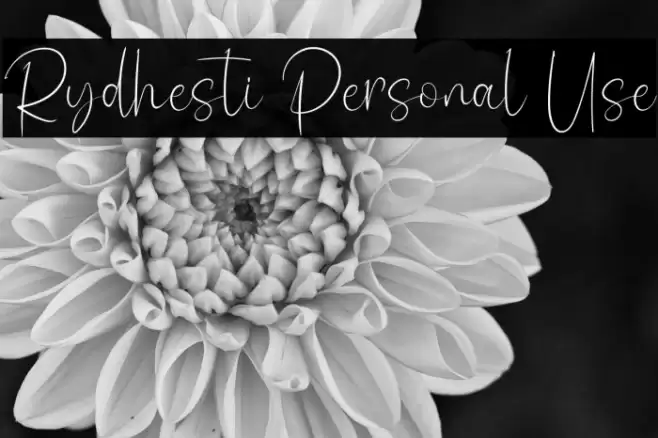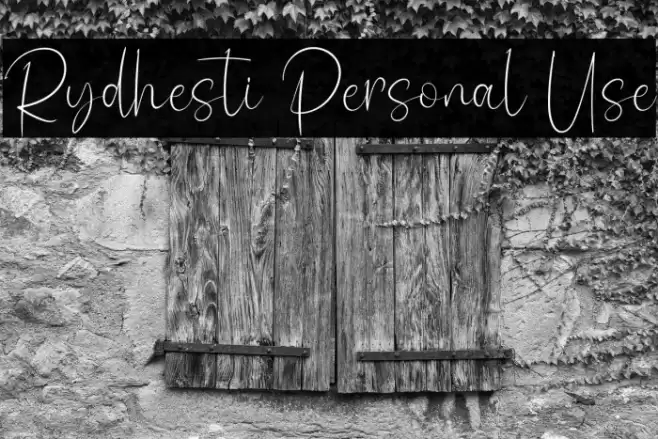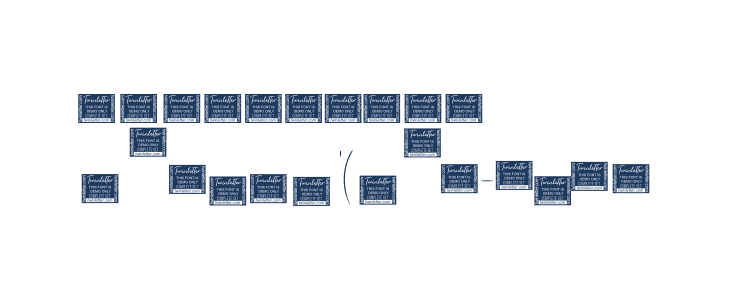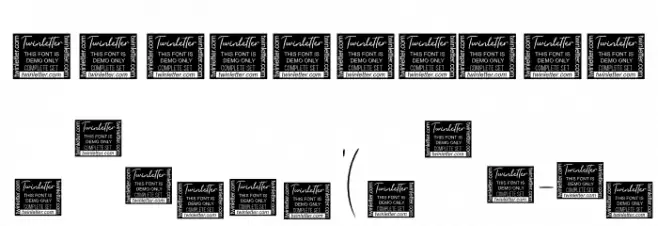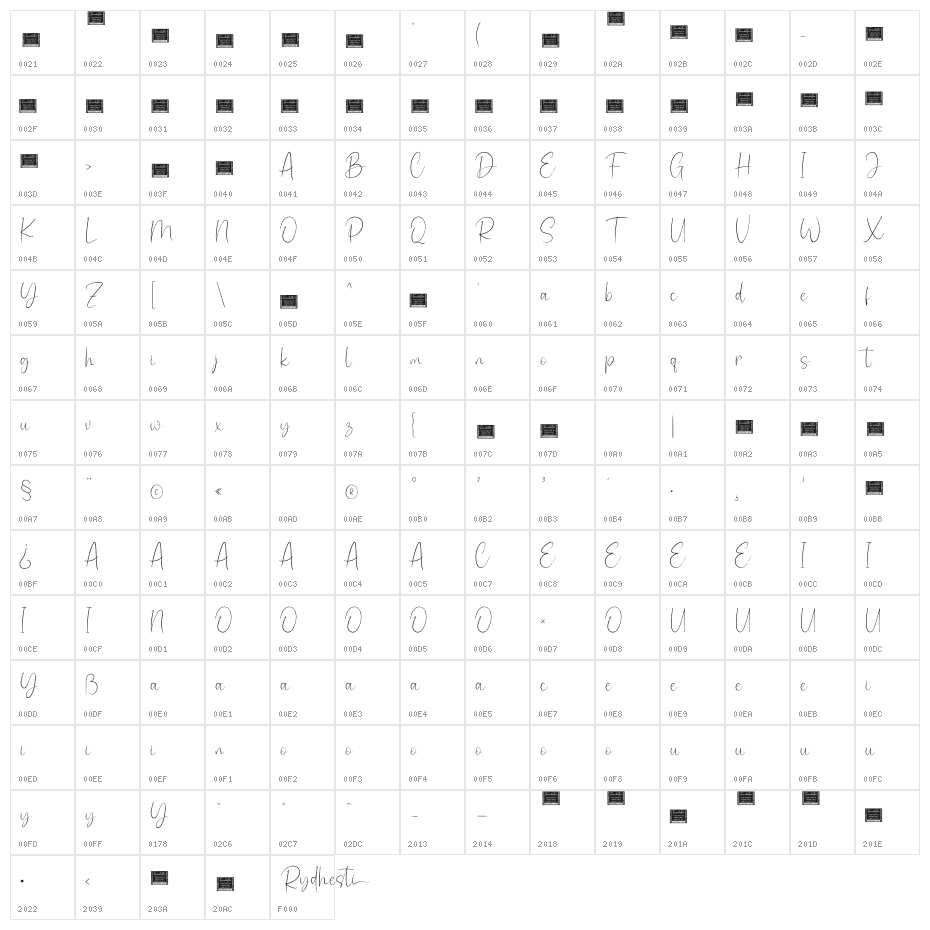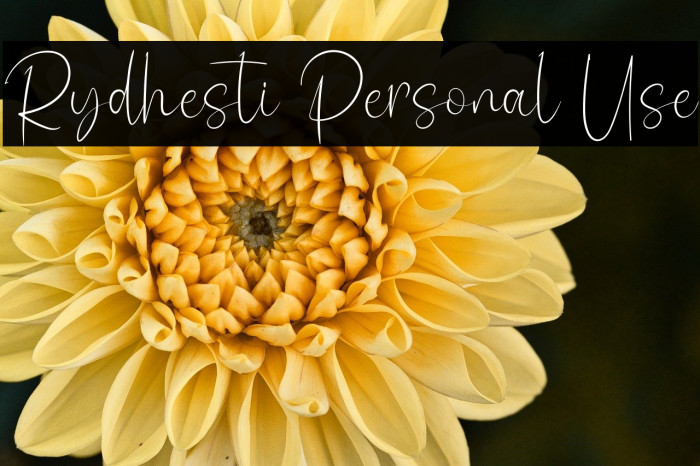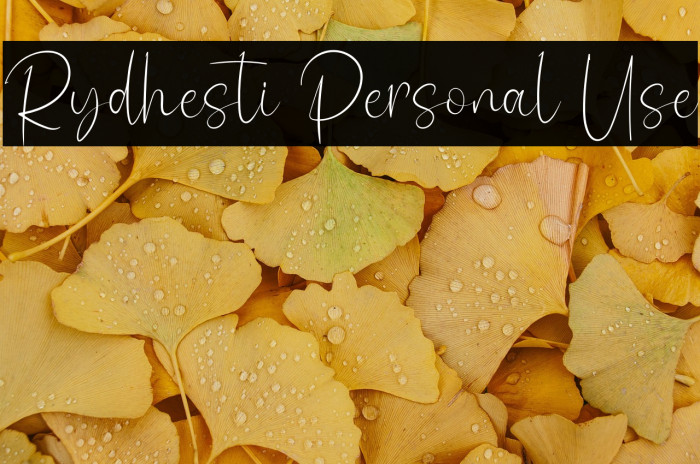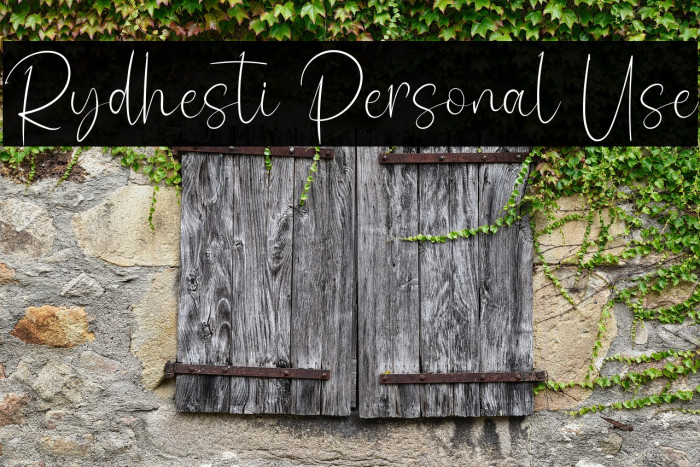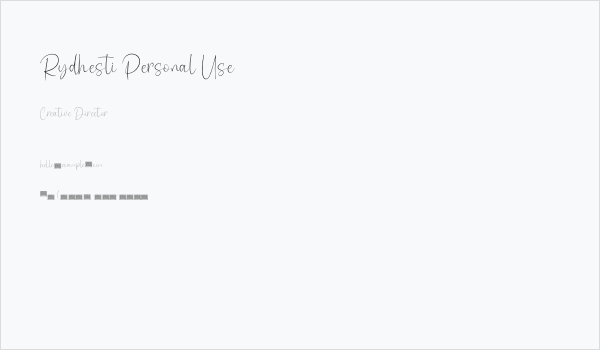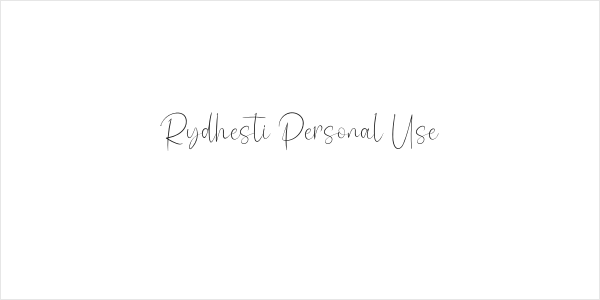
Rydhesti Personal Use Font
Rydhesti Personal Use Description
This font features an elegant and flowing script style, characterized by its delicate and graceful strokes. The letters are connected in a fluid manner, giving it a handwritten appearance. The uppercase letters are tall and slightly exaggerated, while the lowercase letters maintain a consistent flow. The overall design is airy and light, with a sense of movement and rhythm. The font's thin lines and subtle curves create a sophisticated and stylish look, making it suitable for projects that require a personal touch.
- Proposed Projects: Ideal for wedding invitations, greeting cards, personal branding, and elegant logos.
- Weight: Light
- Overall Style: Elegant and Handwritten
- Use Case: Logos, Invitations, Personal Branding